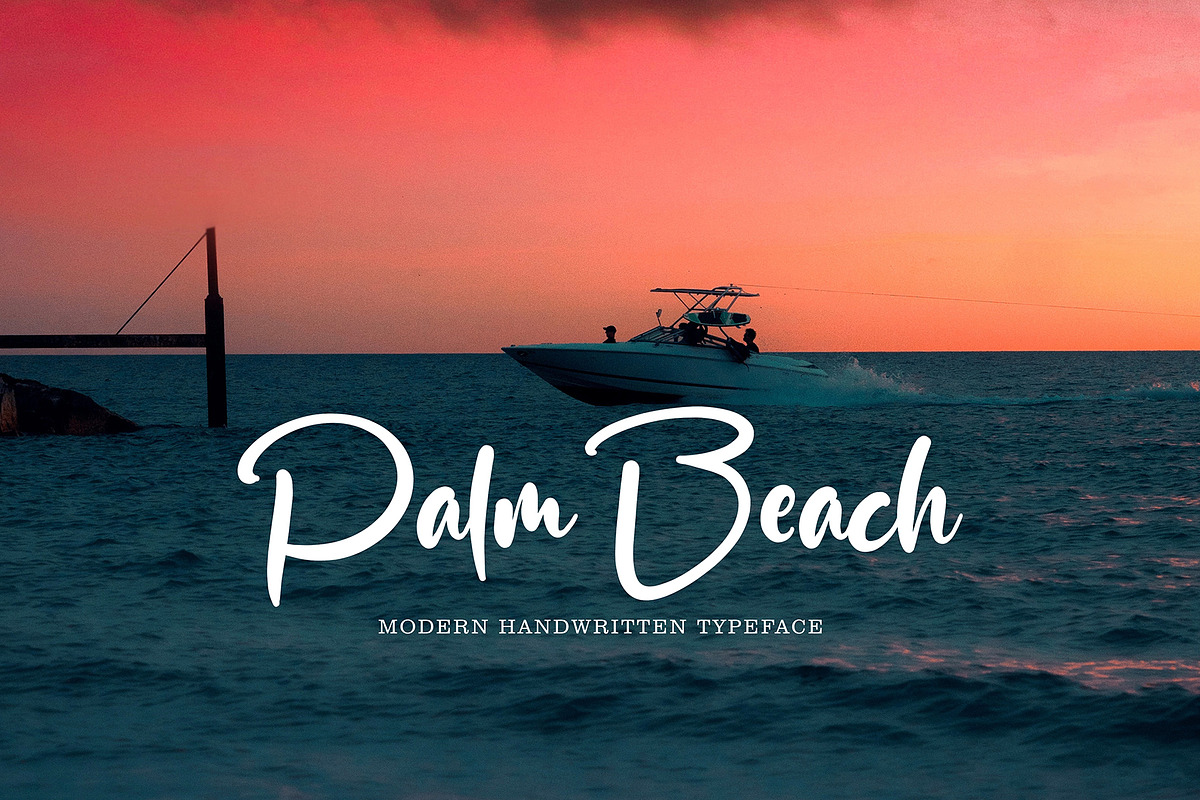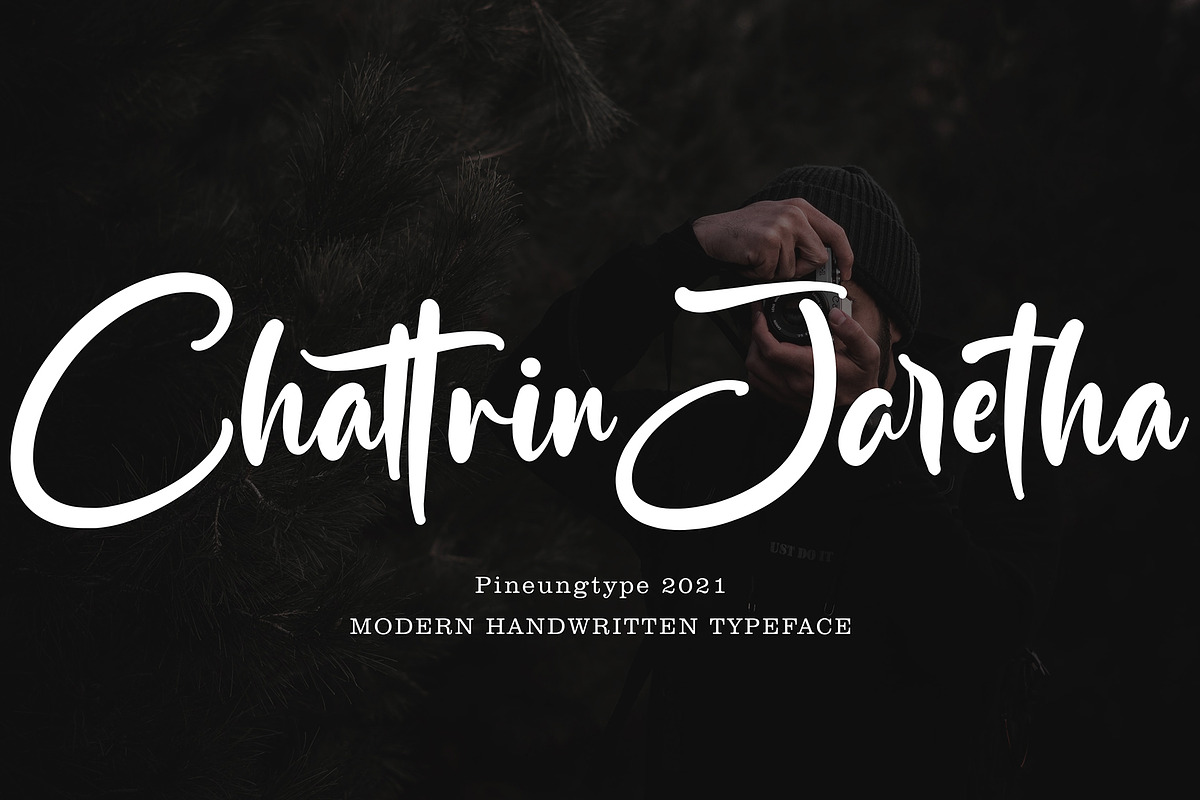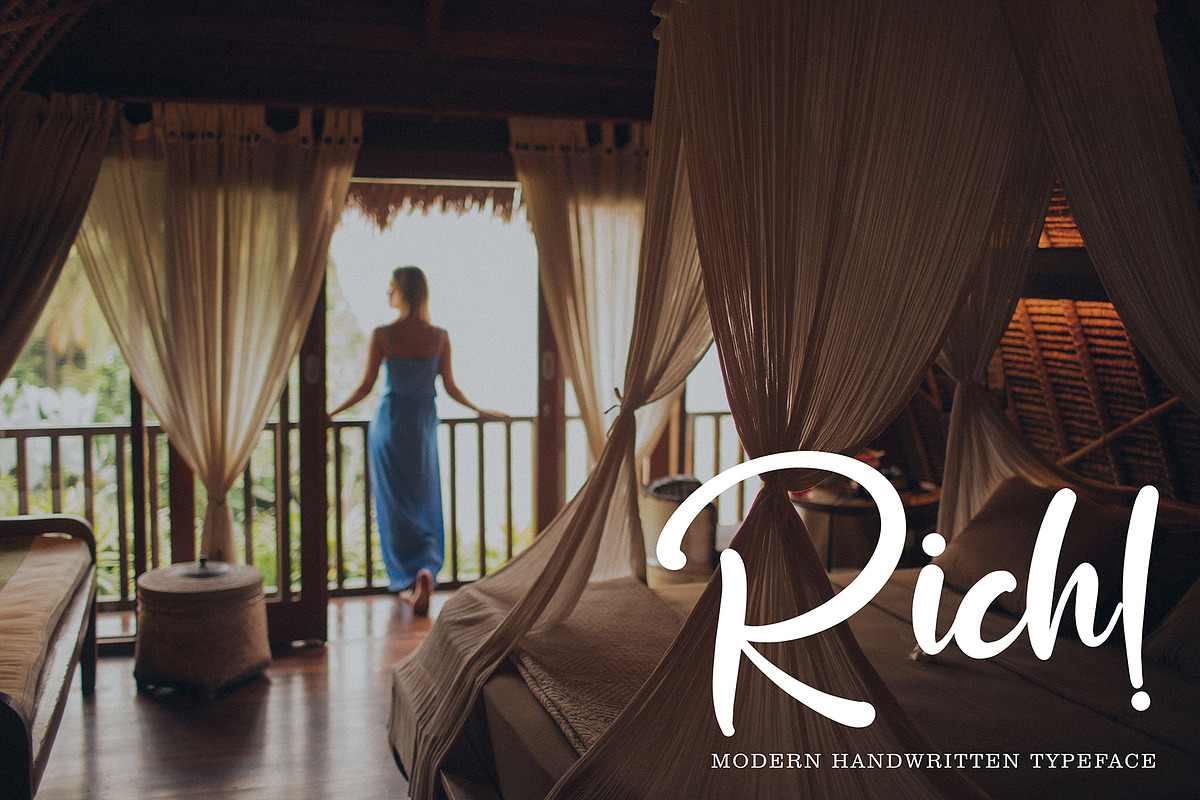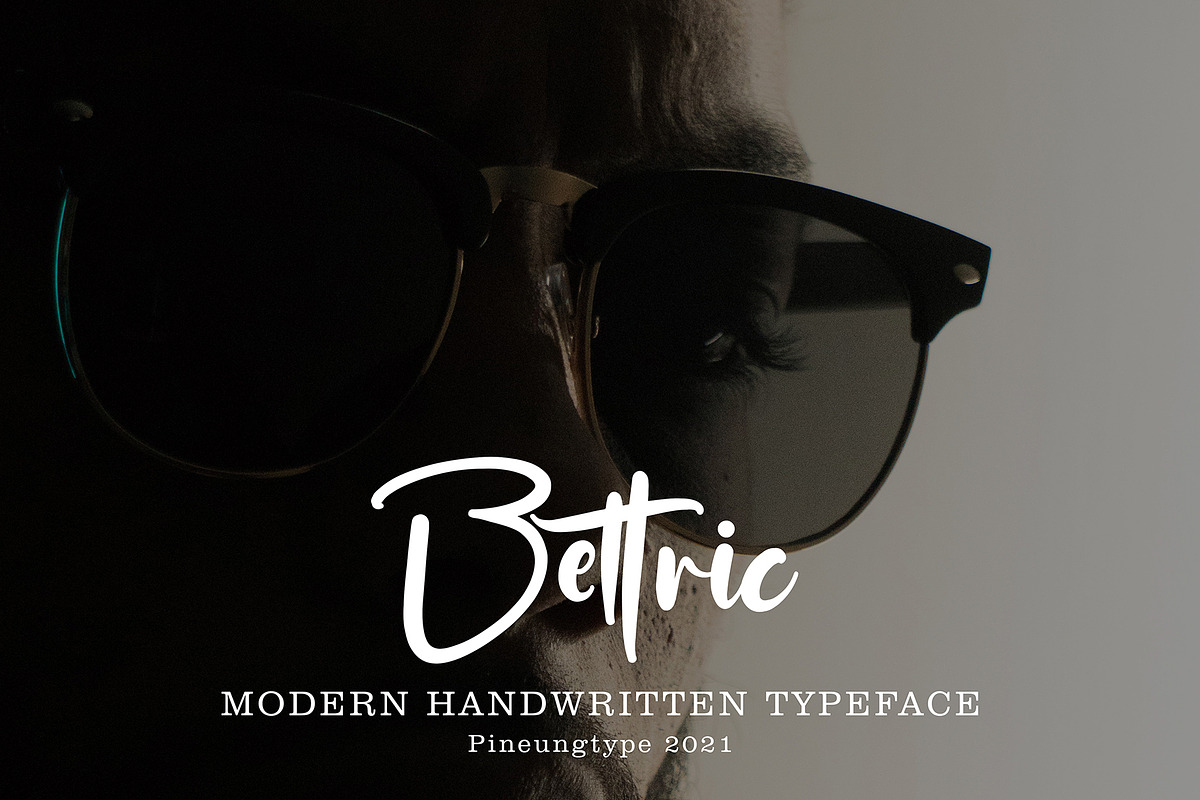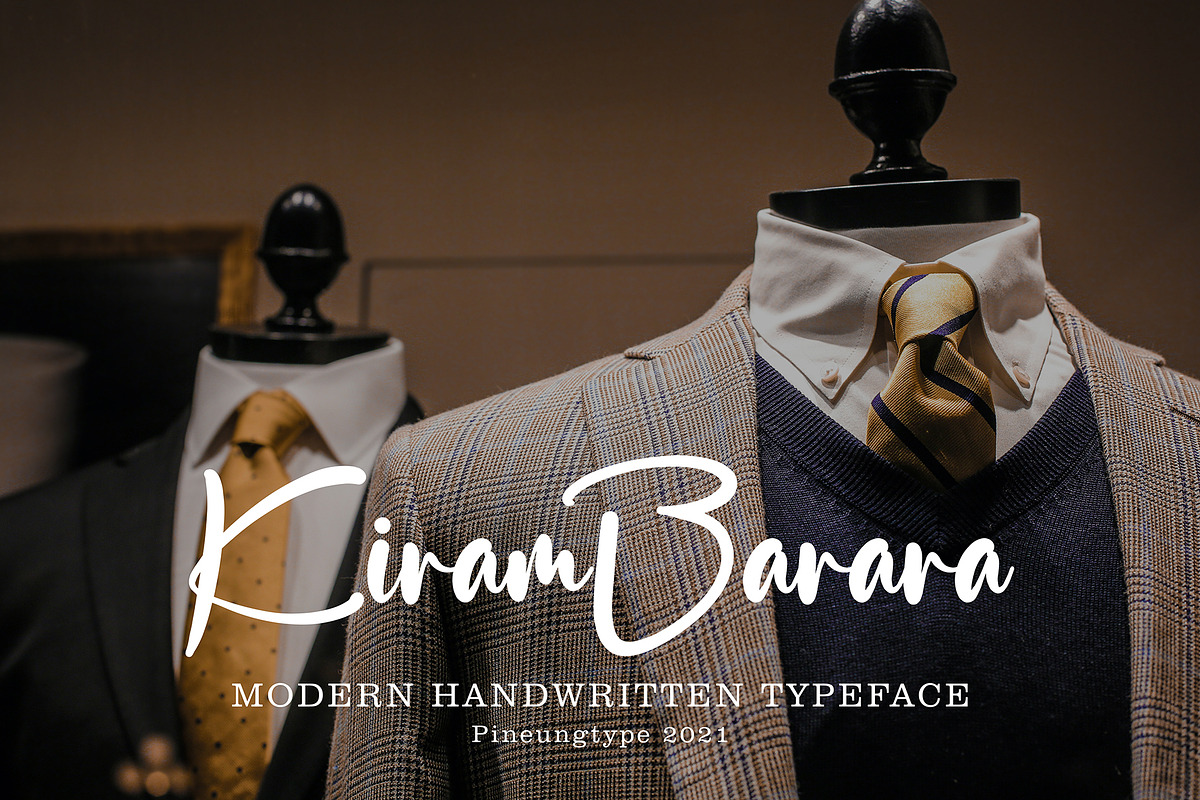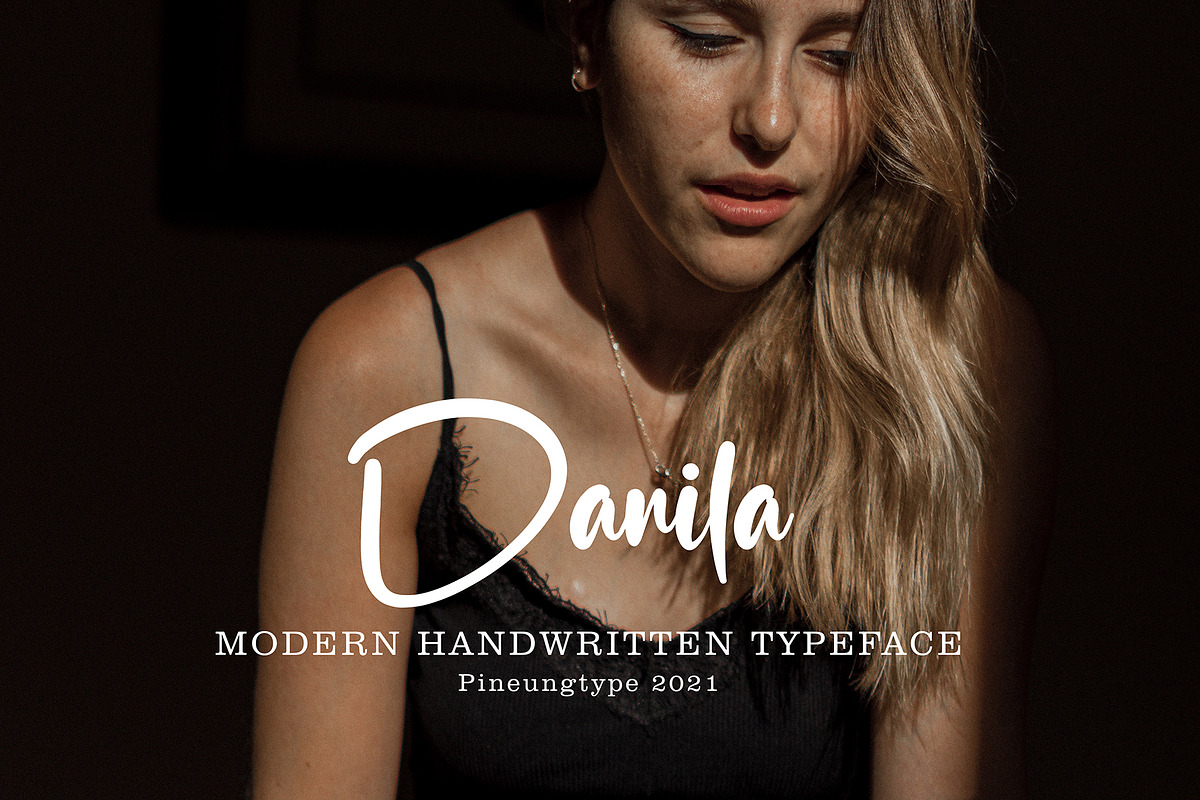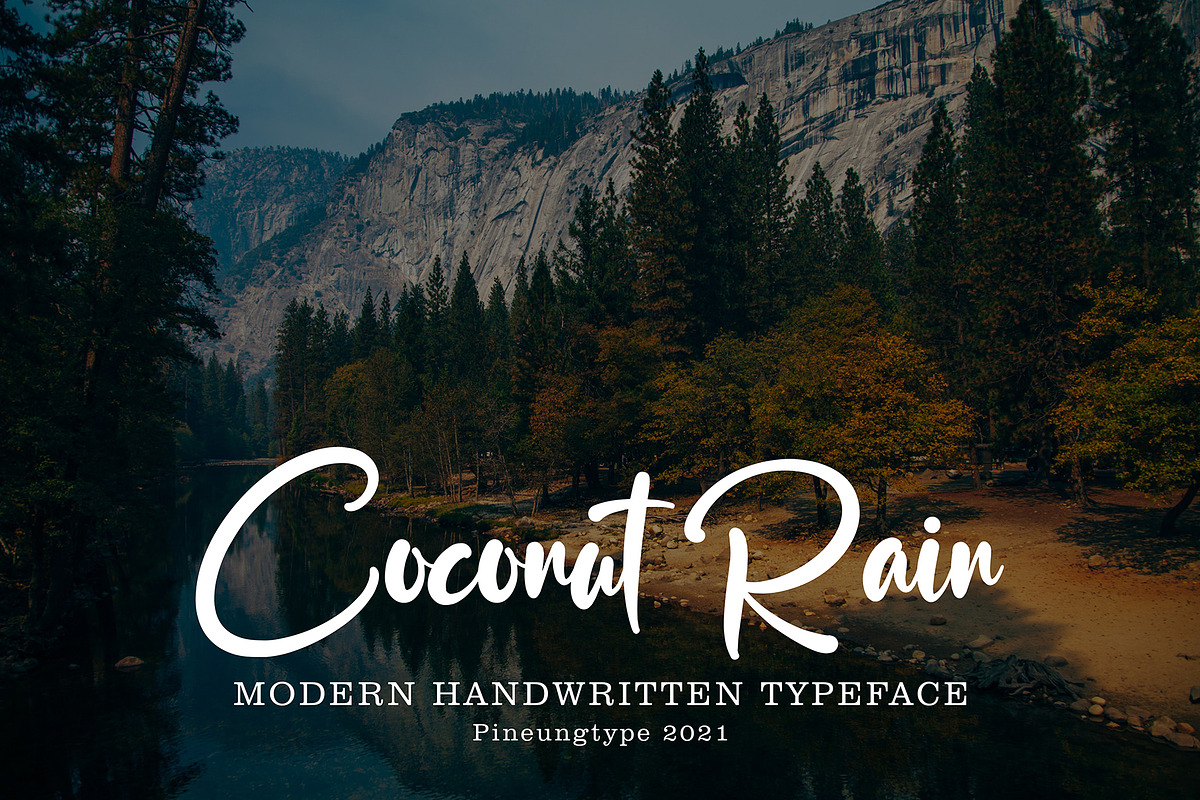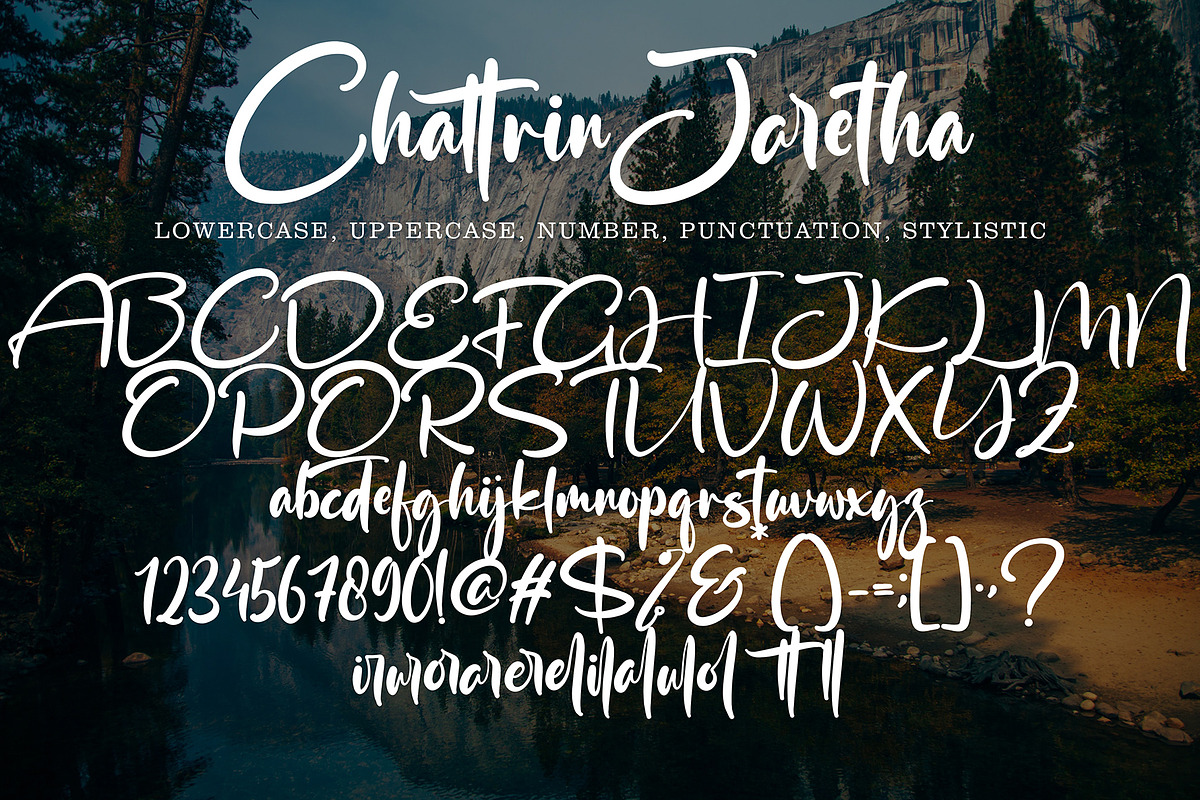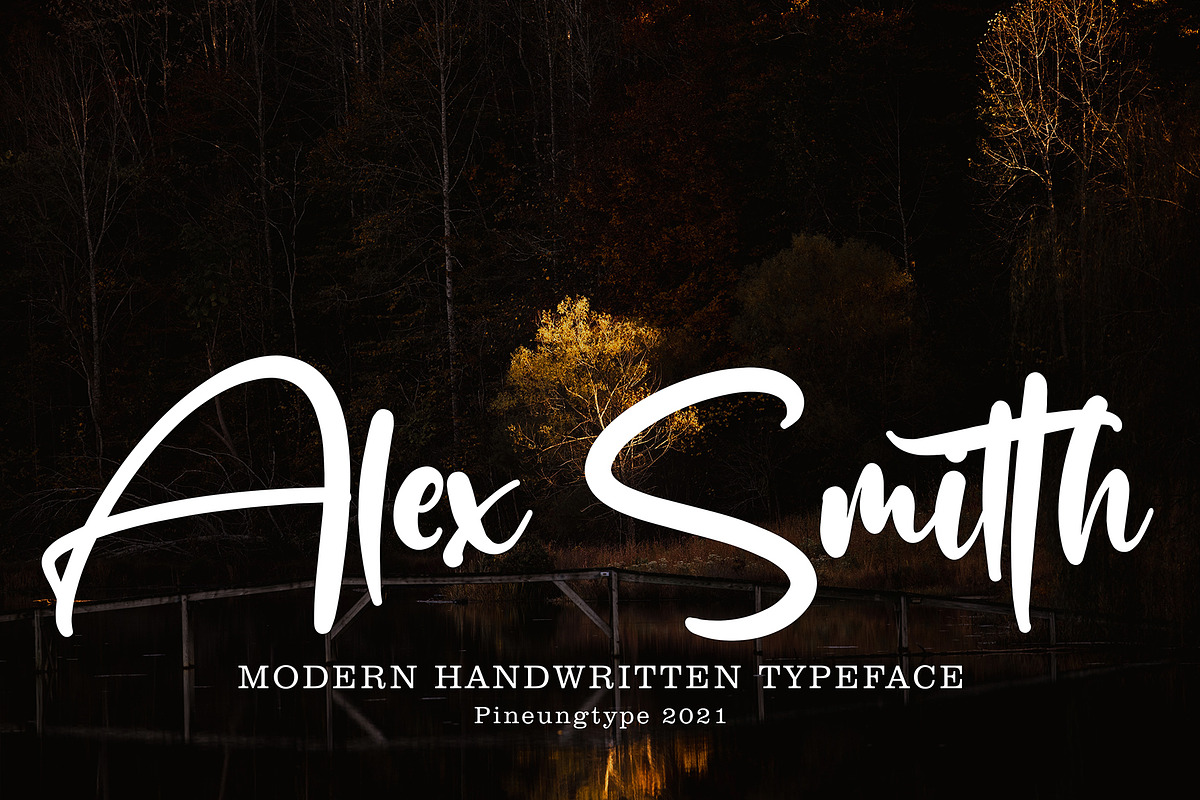
Chattrin Jaretha
Chattrin Jaretha font with new style, this font will perfect for many different project ex: quotes, logo, blog header, poster, banding, letter, invitation, stationery, etc...